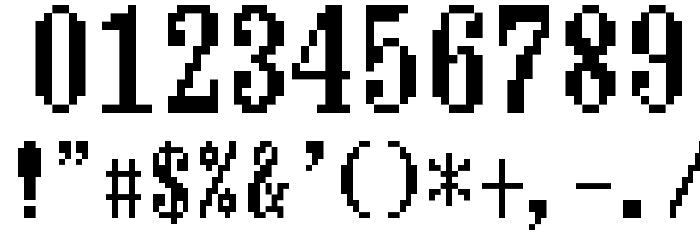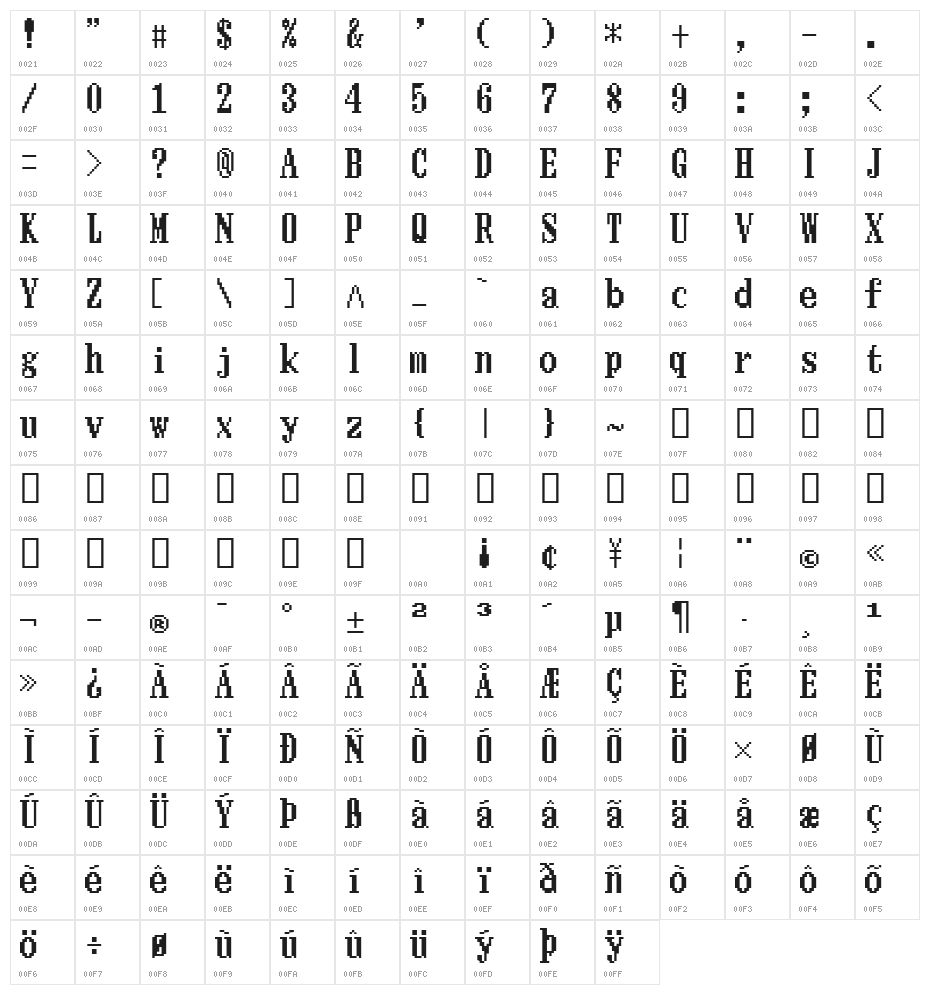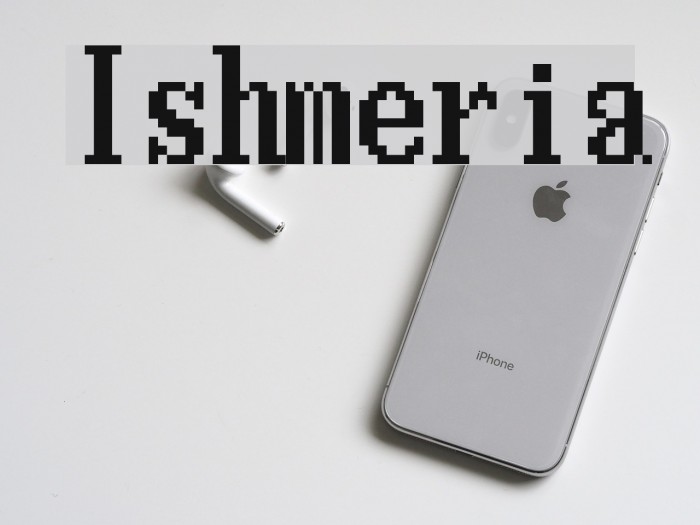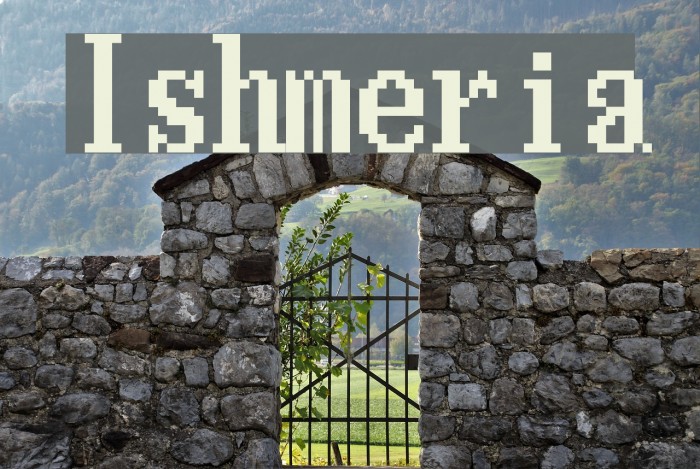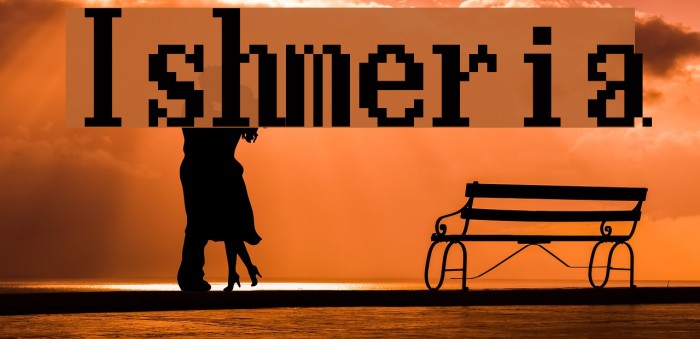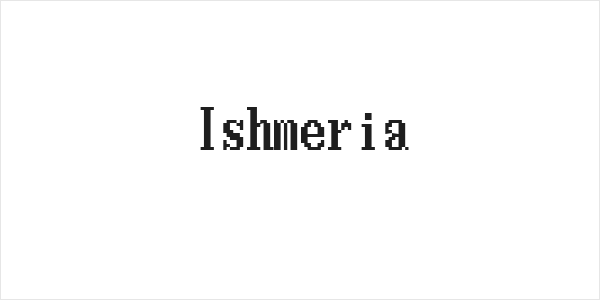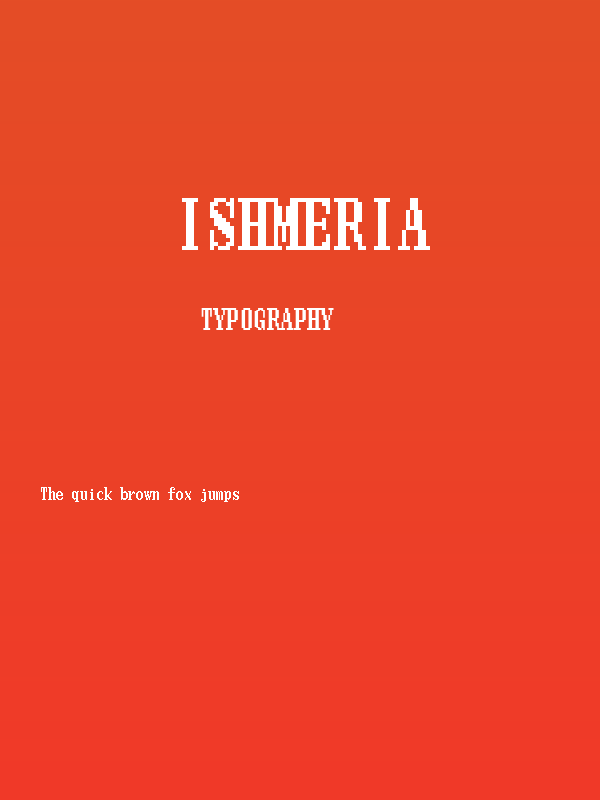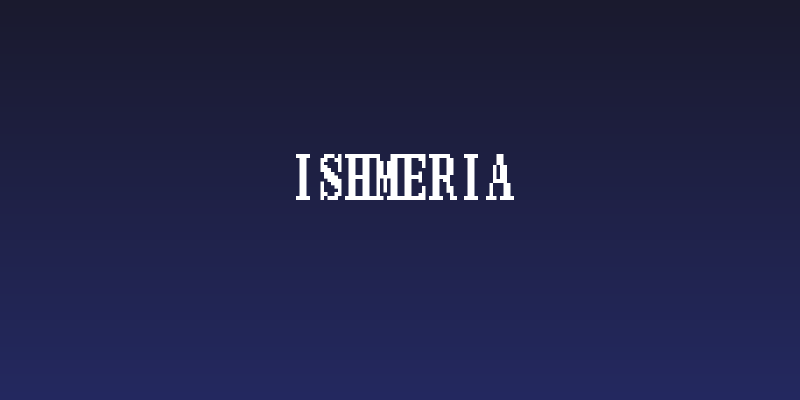
Ishmeria Font
Ishmeria Description
This font features a bold, slab serif style with a strong presence and distinct block-like serifs. The characters are uniformly structured, providing a sense of stability and robustness. The uppercase letters are tall and commanding, while the lowercase letters maintain a consistent height, ensuring readability. The numerals are clear and well-defined, matching the overall boldness of the alphabet. Special characters are crafted with the same attention to detail, making them easily distinguishable. The font's design is reminiscent of vintage typefaces, yet it retains a modern touch, making it versatile for various applications.
| Proposed Projects | Ideal for headlines, posters, branding, and any project requiring a strong, impactful typeface. |